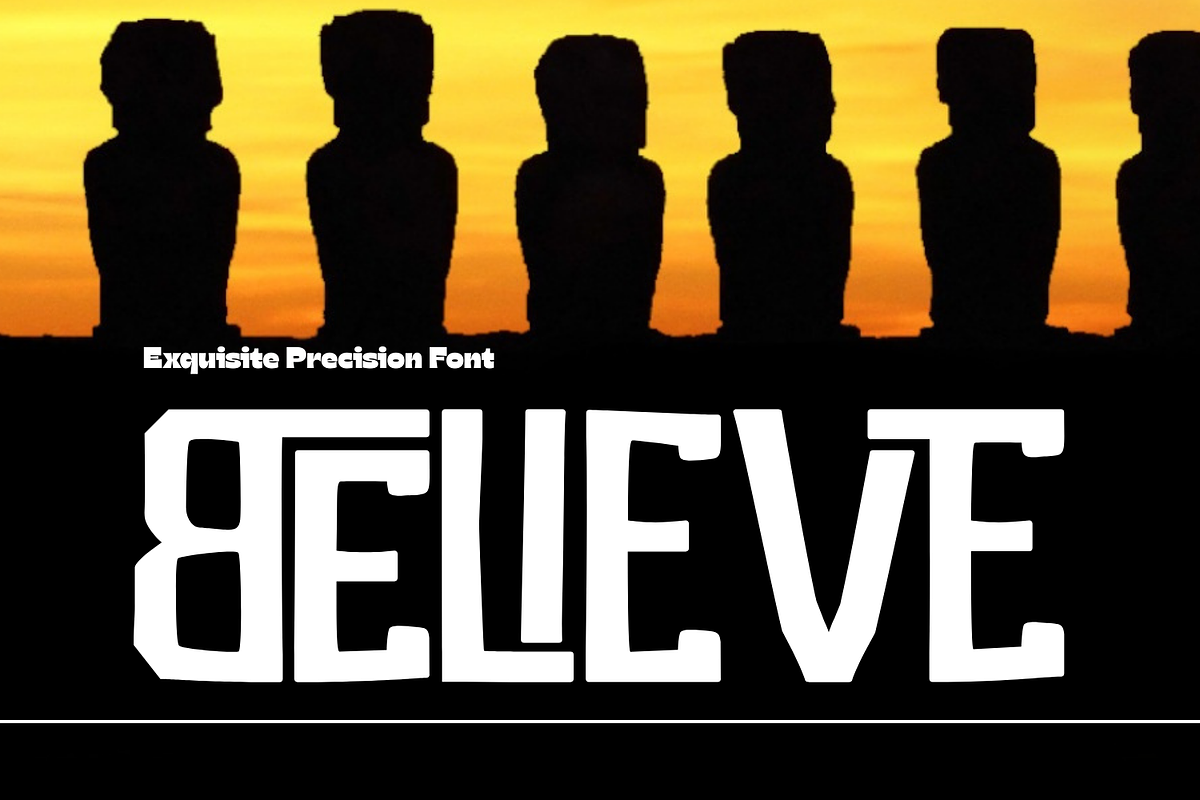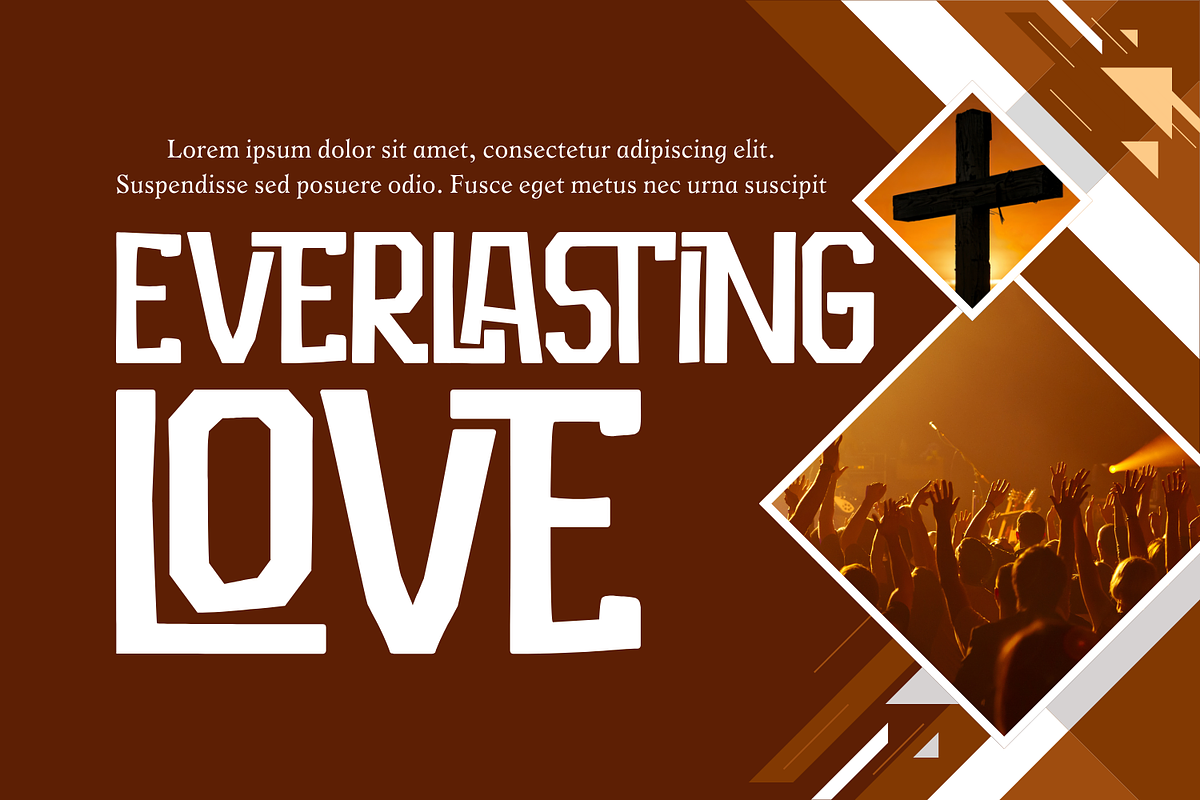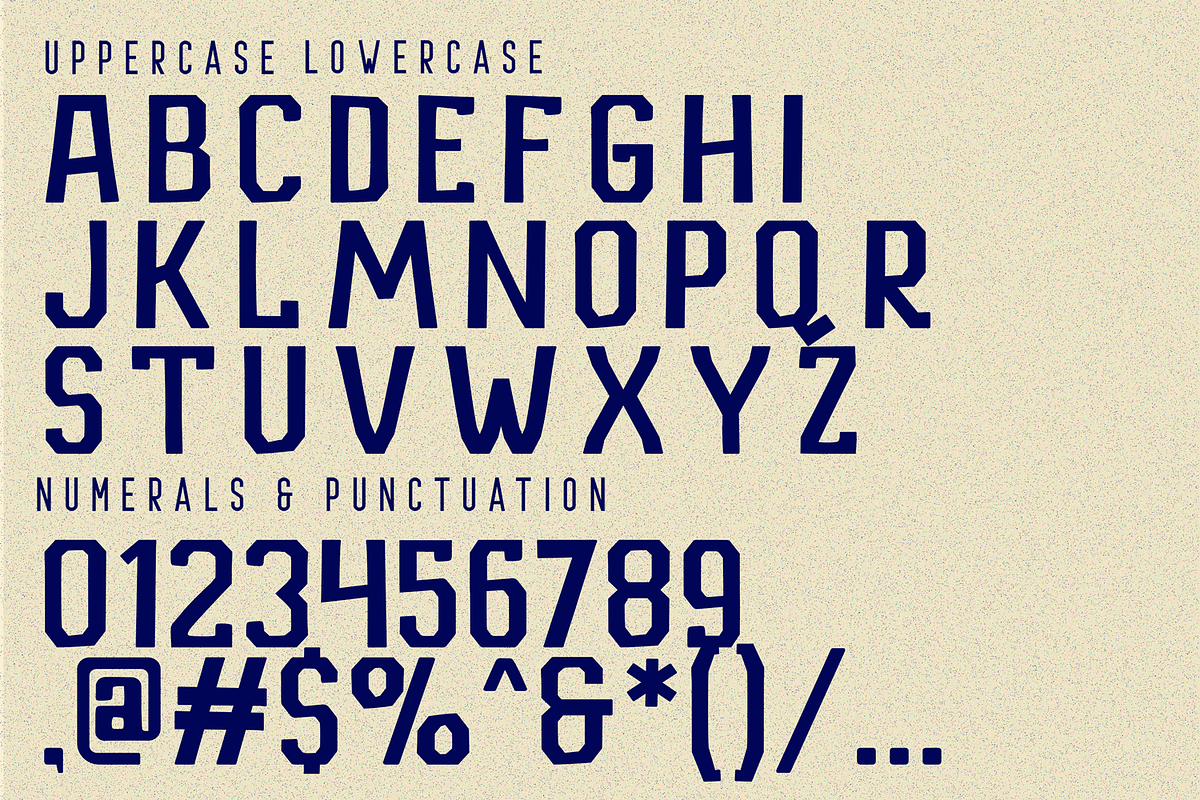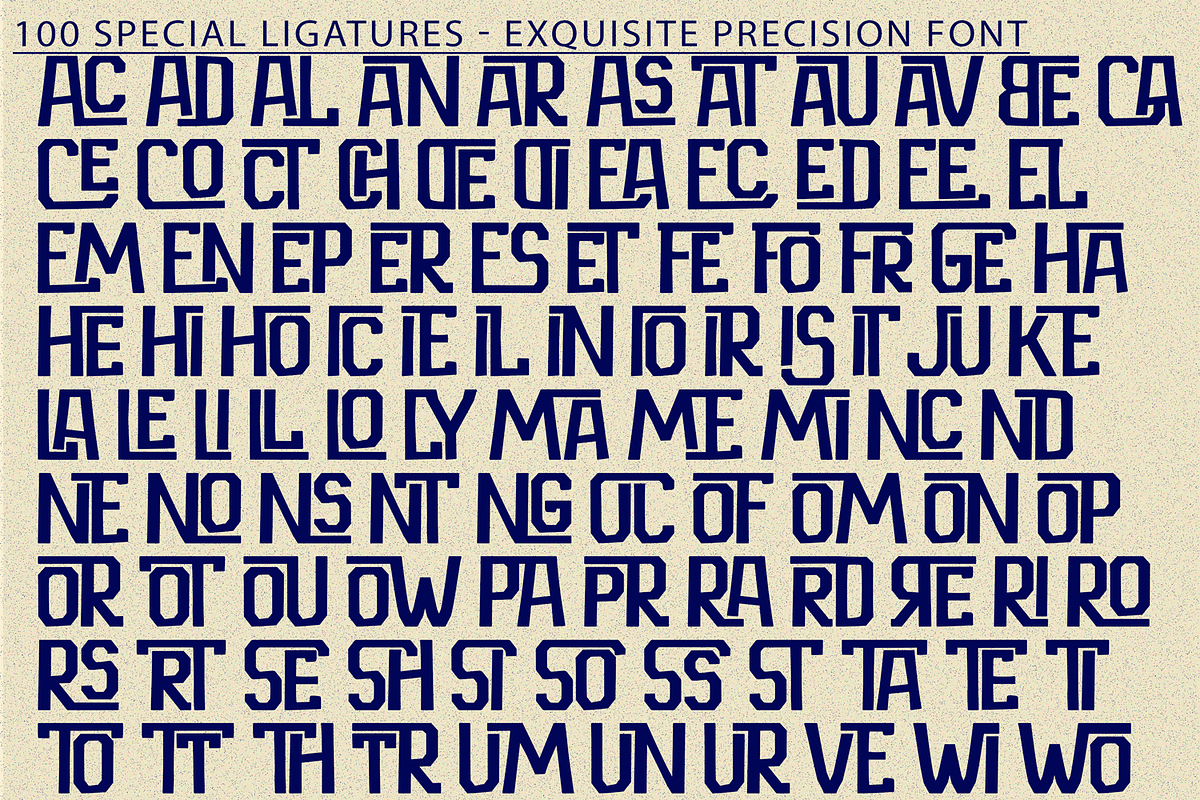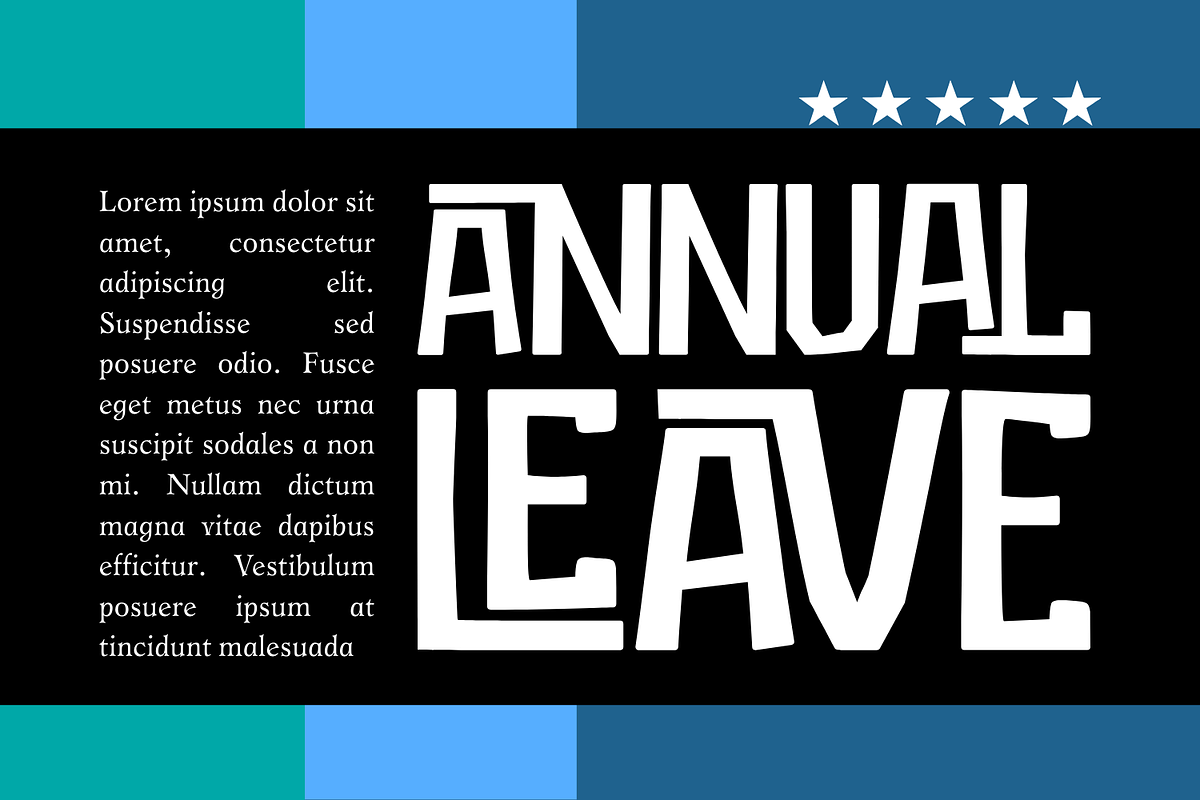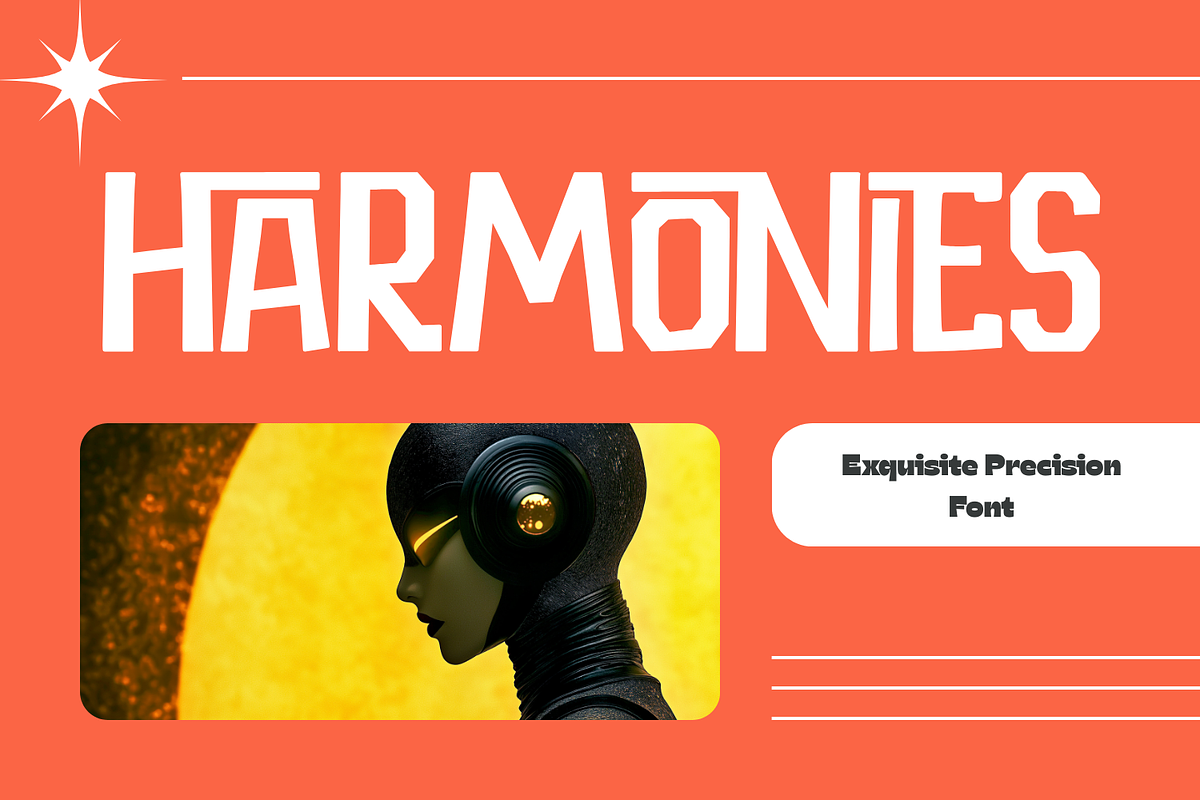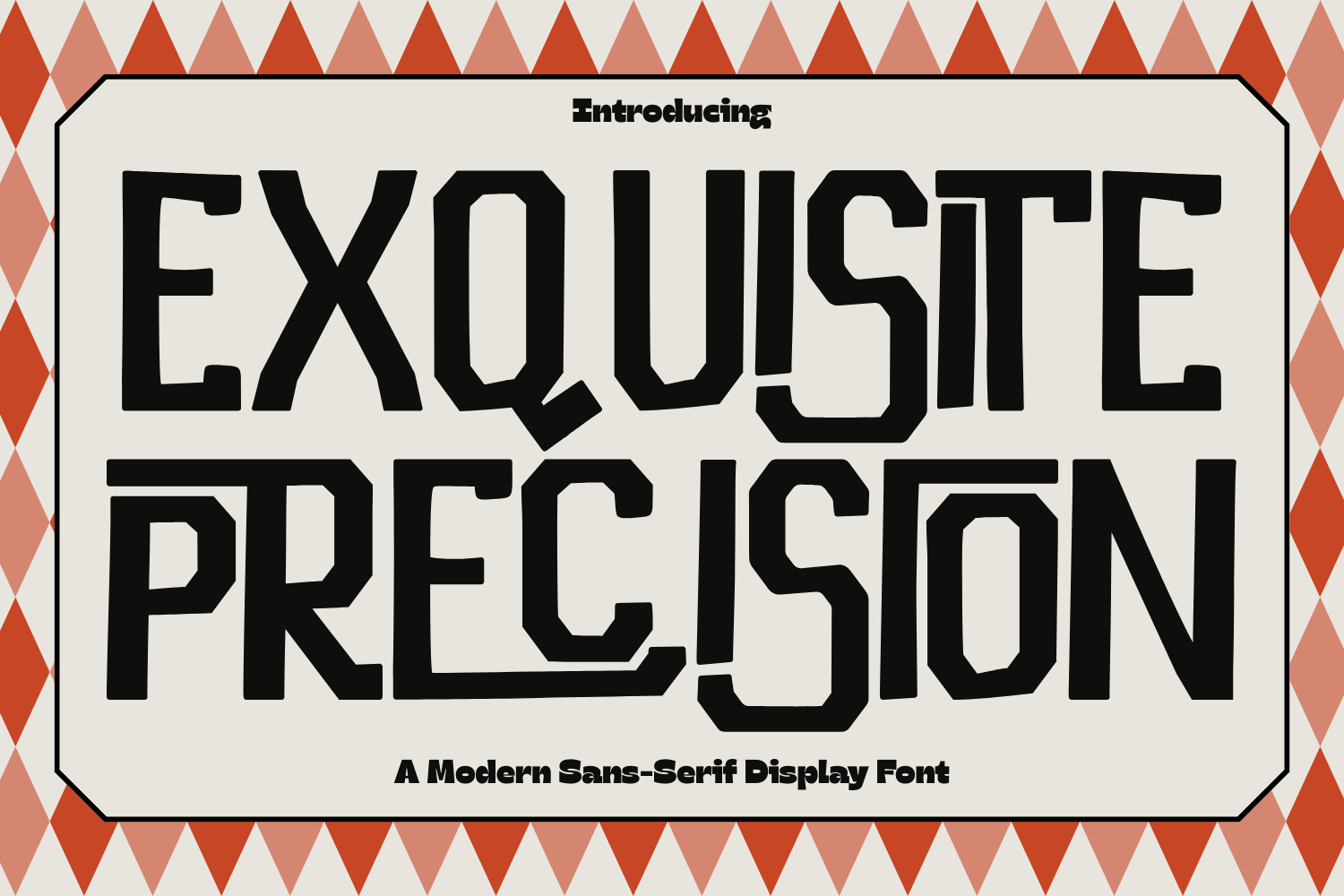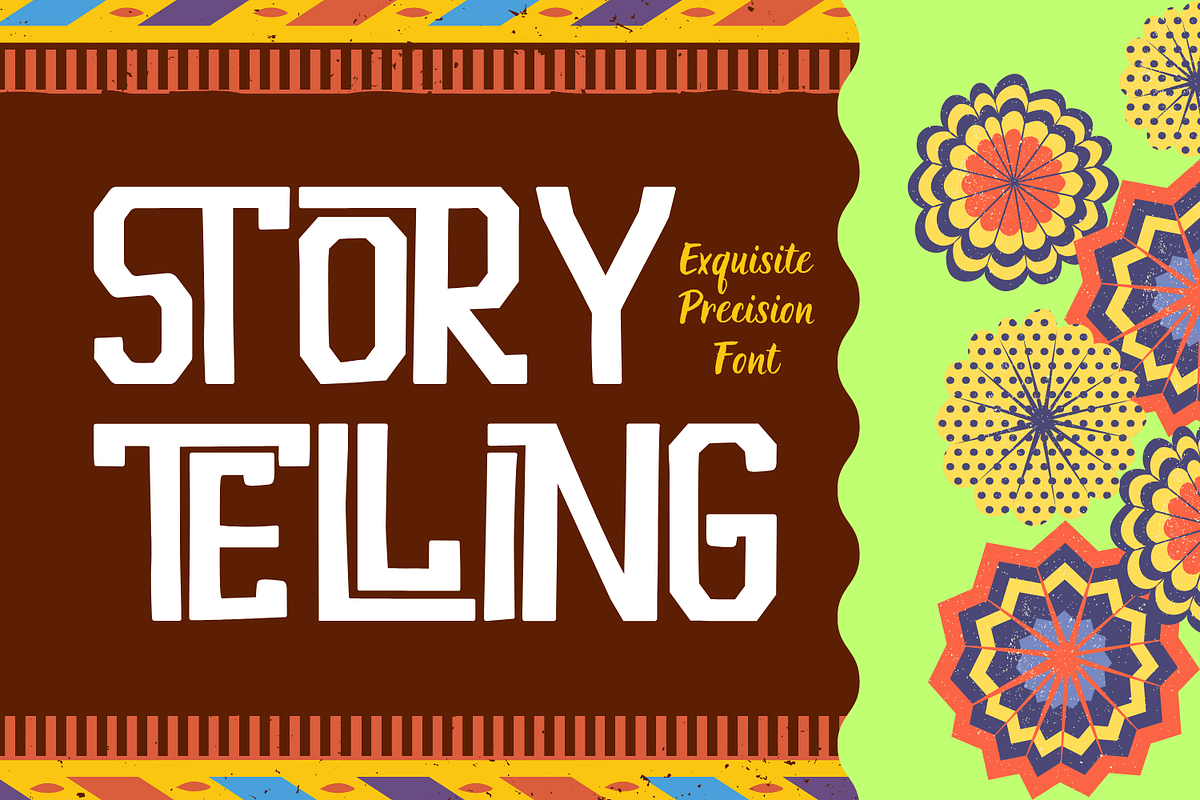
Exquisite Precision - Technical Font
Exquisite Precision - Technical Font – Industrial Geometric Sans Serif Font, a bold industrial geometric sans serif font designed with precision, structure, and strength in mind. Built from clean geometric forms and sharp cut corners, this typeface delivers a solid, technical, and highly confident visual presence. The letterforms feature uniform stroke weight, angular details, and carefully chamfered edges that create a sense of mechanical accuracy and architectural discipline. Its strong proportions and clear construction make Exquisite Precision ideal for impactful headlines while maintaining excellent legibility.
🔤Features:
- Uppercase Letters
- Around 100 Special Ligatures & Alternates
- Accented Characters for multilingual support
🔤About 100 ligatures combined with Stylistic Alternates Font:
AC AD AL AN AR AS AT AU AV BE CA CE CH CO CT DE DI EA EC ED EE EL EM EN EP ER ES ET FE FO FR GE HA HE HI HO IE IC IL IN IO IR IS IT JU KE LA LE LI LL LO LY MA ME MI NC ND NE NG NO NT NS OC OF OM ON OO OP OR OT OU OW PA PR RA RD RE RI RO RS RT SE SH SI SO SS ST TA TE TH TI TO TR TT UM UN UR VE WI WO